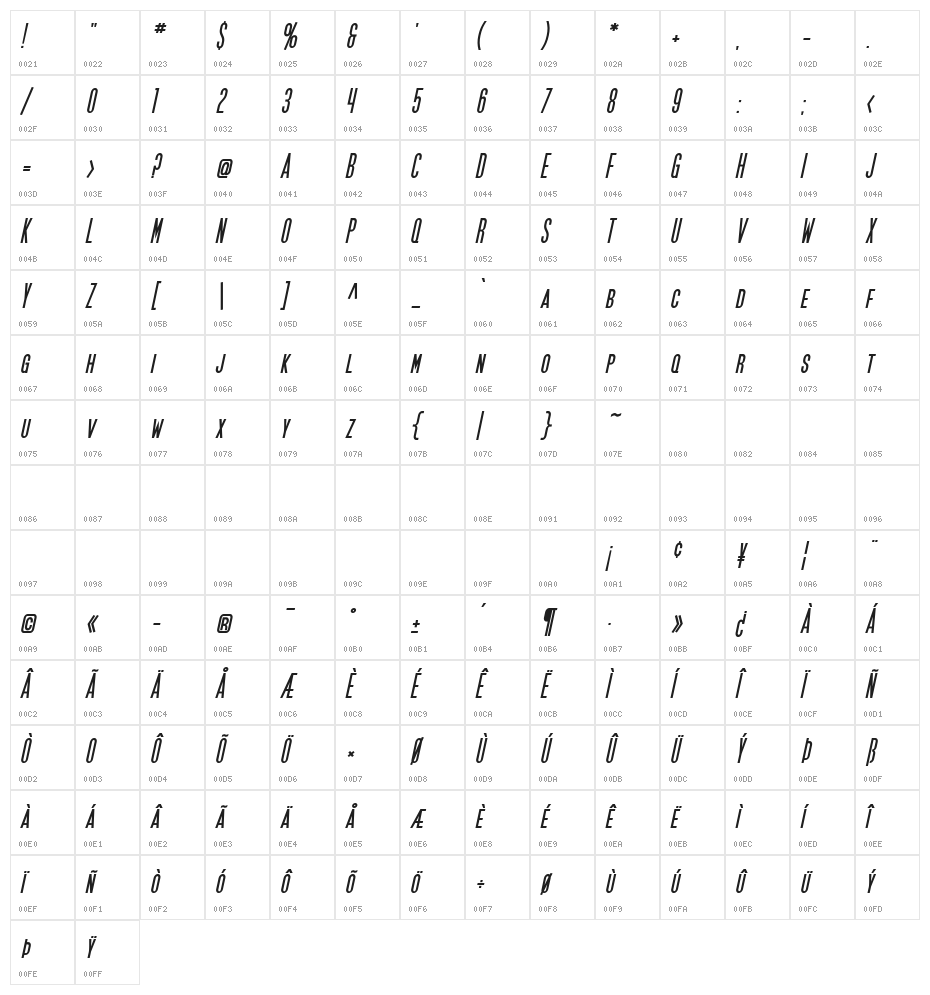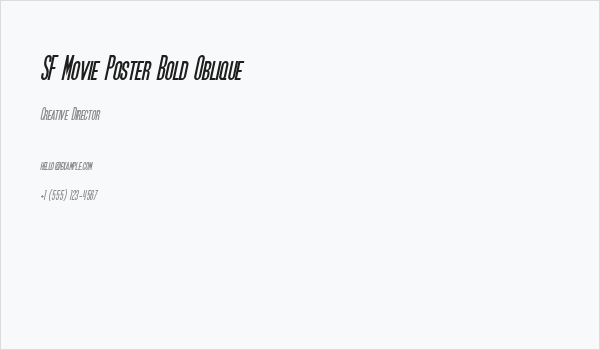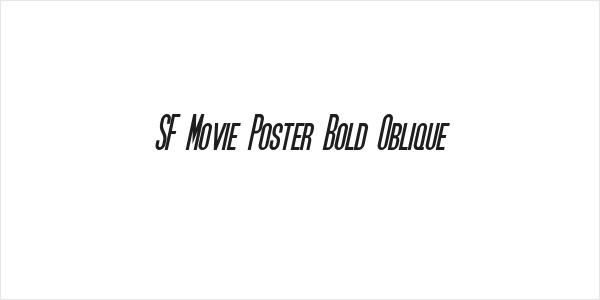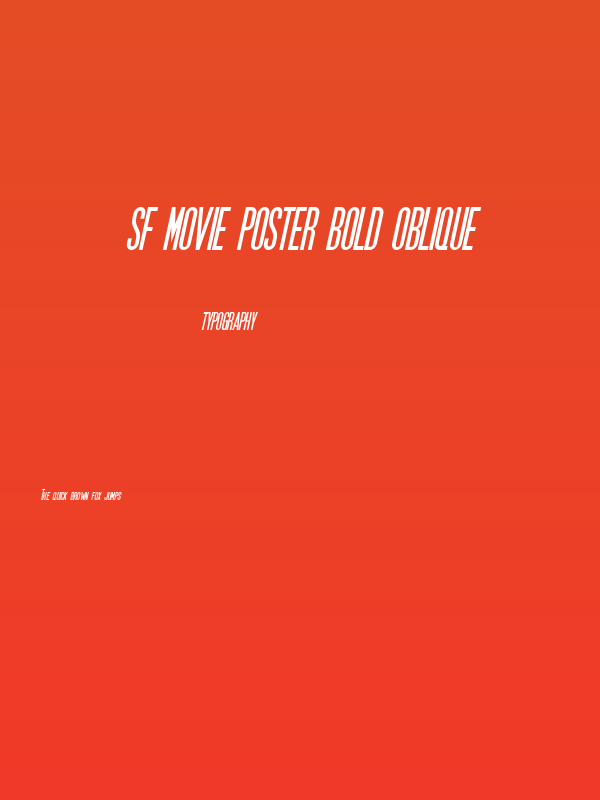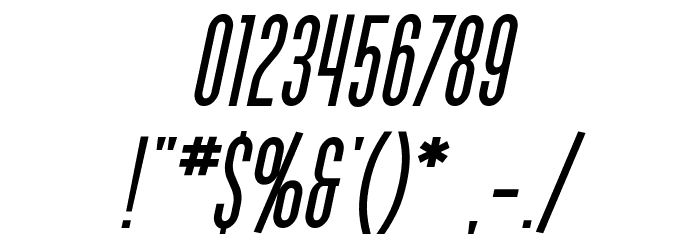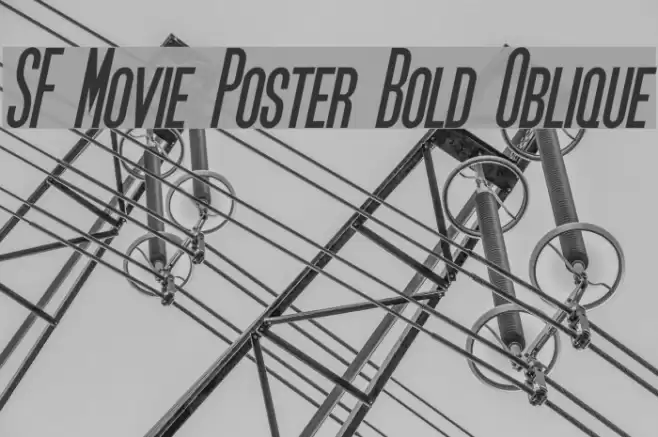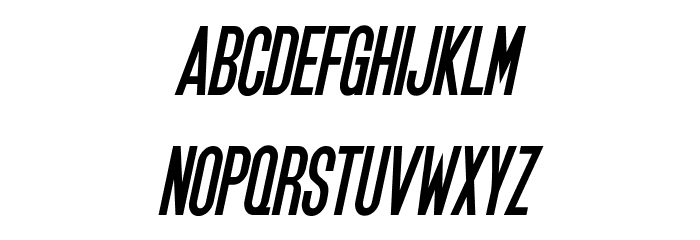
SF Movie Poster Bold Oblique Font
SF Movie Poster Bold Oblique Description
This font features a bold and oblique style, characterized by its strong, slanted letterforms that convey a sense of motion and urgency. The uppercase and lowercase letters are designed with a consistent slant, enhancing the dynamic appearance. The numerals and special characters maintain this slant, ensuring uniformity across all glyphs. The strokes are thick and consistent, providing a robust and impactful presence. This font is ideal for creating attention-grabbing headlines and titles, especially in contexts that require a modern and energetic aesthetic.
| Proposed Projects | Ideal for movie posters, advertising campaigns, and dynamic branding projects. |